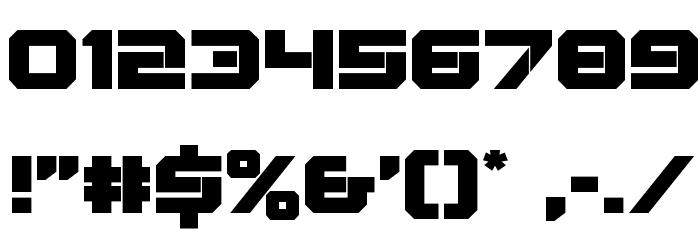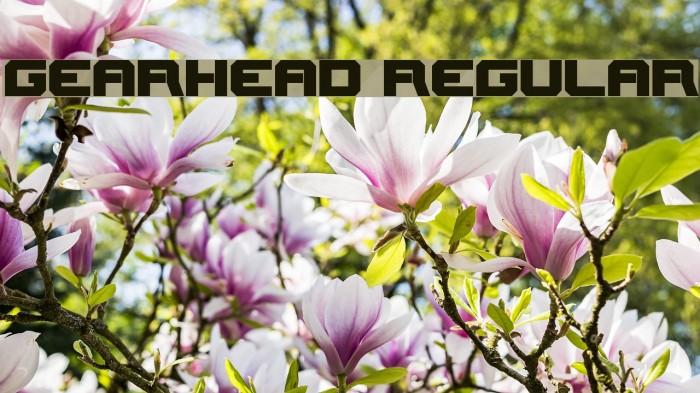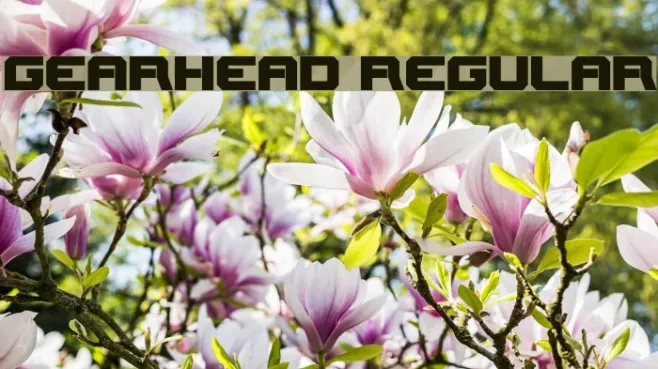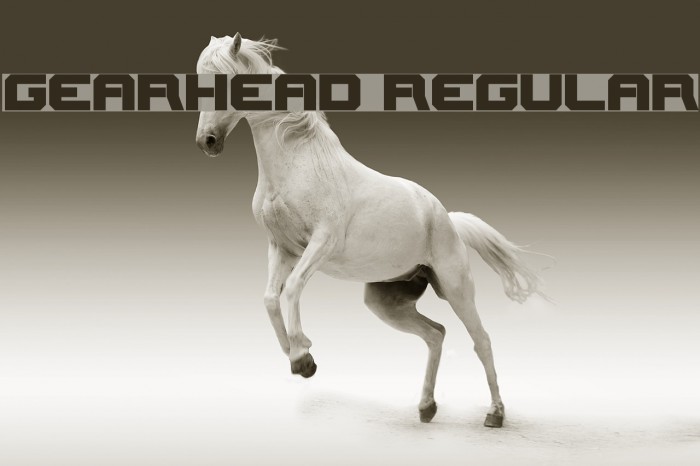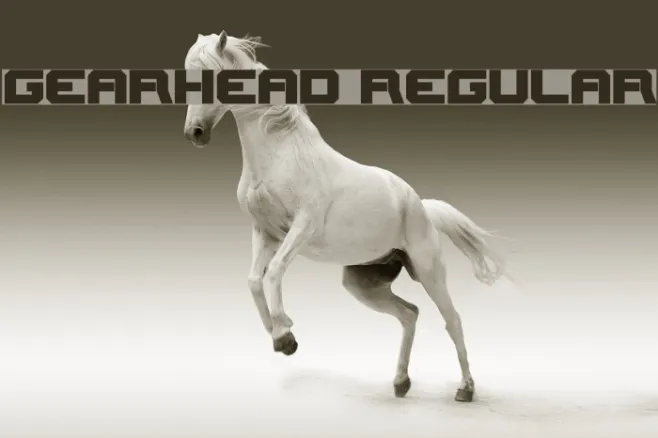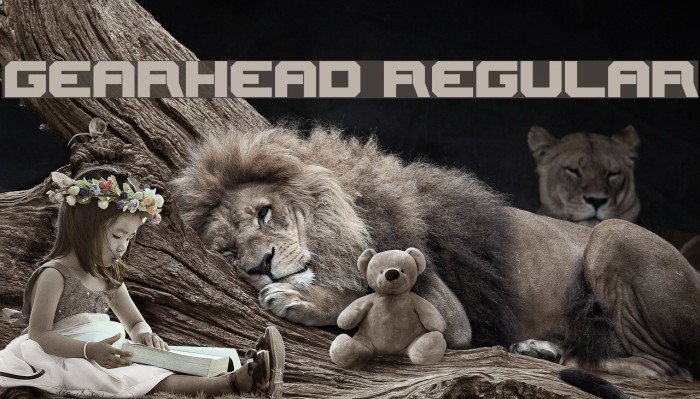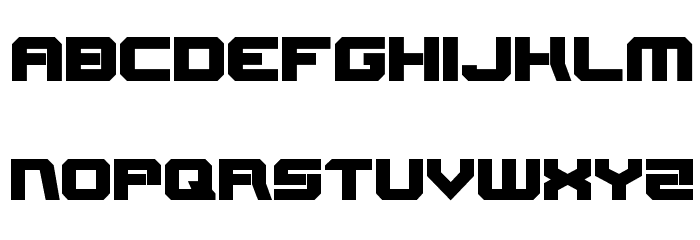
Gearhead Regular Font
Gearhead Regular Description
This font features a bold, geometric design with a distinctly modern and industrial aesthetic. The characters are constructed with sharp angles and straight lines, giving them a mechanical and futuristic appearance. The uppercase and lowercase letters share a consistent style, maintaining uniformity across the typeface. The numerals and special characters are equally bold and angular, fitting seamlessly with the overall design. This font's strong presence makes it ideal for attention-grabbing applications.
| Proposed Projects | Ideal for use in technology branding, automotive designs, video game titles, and futuristic posters. |